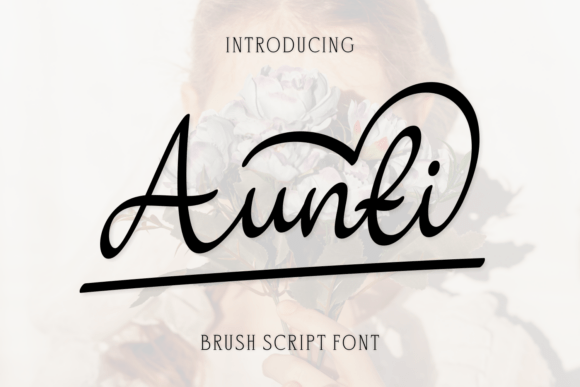
Aunti Font: The Sweet Brush Script Font for Creative Designs
In the world of typography, fonts play a crucial role in conveying the tone and personality of a brand or creative project. Among the numerous fonts available, Aunti Font stands out for its unique blend of smooth strokes, friendly vibe, and hand-lettered feel. In this article, we’ll explore the features, uses, and benefits of Aunti Font, and why it’s an excellent choice for various design applications.
What is Aunti Font?
Aunti Font is a beautiful, sweet brush script font that exudes warmth and personality. Its smooth strokes and fluid connections give it a natural, hand-lettered look that’s perfect for designs that require a personal touch. The font’s friendly and approachable feel makes it an excellent choice for a wide range of creative projects.
Key Features of Aunti Font
- Smooth Strokes: Aunti Font features smooth, flowing strokes that give it a natural, hand-lettered feel.
- Hand-lettered Look: The font’s hand-lettered appearance adds a personal touch to any design, making it perfect for projects that require a human touch.
- Legibility: Despite its whimsical nature, Aunti Font is highly legible, making it suitable for use in various design applications.
- Whimsical: The font’s playful, whimsical feel adds a touch of warmth and personality to any design.
Uses of Aunti Font
Aunti Font is a versatile font that can be used in various design applications, including:
- Greeting Cards: The font’s friendly and personal feel makes it perfect for creating greeting cards for special occasions.
- Feminine Branding: Aunti Font’s elegant and sophisticated look makes it an excellent choice for feminine branding, including logos, packaging, and marketing materials.
- Lifestyle Blogs: The font’s legibility and friendly feel make it suitable for use in lifestyle blogs, adding a personal touch to articles and posts.
- Craft-based Designs: Aunti Font’s whimsical nature makes it perfect for craft-based designs, including handmade products, DIY tutorials, and crafting blogs.
Benefits of Using Aunti Font
Using Aunti Font in your designs offers several benefits, including:
- Unique Personality: The font’s hand-lettered feel and whimsical nature add a unique personality to your designs, setting them apart from others.
- Emotional Connection: Aunti Font’s friendly and approachable feel helps create an emotional connection with your audience, making your designs more relatable and engaging.
- Versatility: The font’s versatility makes it suitable for use in various design applications, from greeting cards to lifestyle blogs.
- Ease of Use: Aunti Font is easy to use and pairs well with other fonts, making it a great addition to your font library.
Tips for Using Aunti Font Effectively
To get the most out of Aunti Font, follow these tips:
- Use it for Headings: Aunti Font is perfect for headings, adding a touch of personality and whimsy to your designs.
- Pair it with Other Fonts: Experiment with pairing Aunti Font with other fonts to create a unique and visually appealing design.
- Adjust the Size: Adjust the font size to achieve the desired effect, from large headings to smaller body text.
- Experiment with Colors: Try out different colors to find the perfect match for your design, from bold and bright to soft and pastel.
Aunti Font is a beautiful, sweet brush script font that adds a touch of warmth and personality to any design. Its smooth strokes, hand-lettered feel, and whimsical nature make it perfect for a wide range of creative projects, from greeting cards to lifestyle blogs. With its versatility, ease of use, and emotional connection, Aunti Font is an excellent choice for designers looking to add a unique touch to their designs.
FAQs About Aunti Font
- What is Aunti Font? Aunti Font is a sweet brush script font featuring smooth strokes and a friendly, personal touch.
- What is Aunti Font used for? Aunti Font is suitable for use in various design applications, including greeting cards, feminine branding, lifestyle blogs, and craft-based designs.
- Is Aunti Font legible? Yes, Aunti Font is highly legible, making it suitable for use in various design applications.